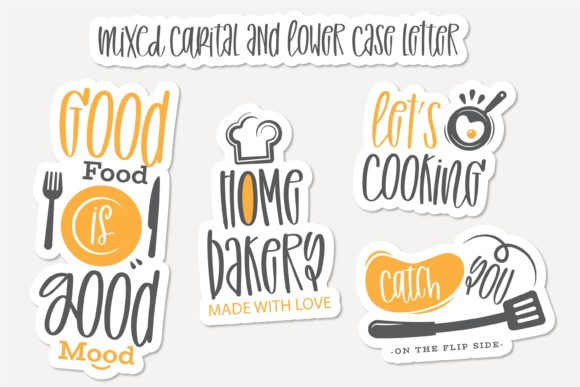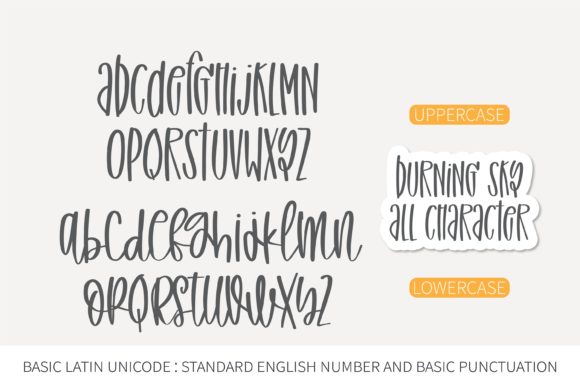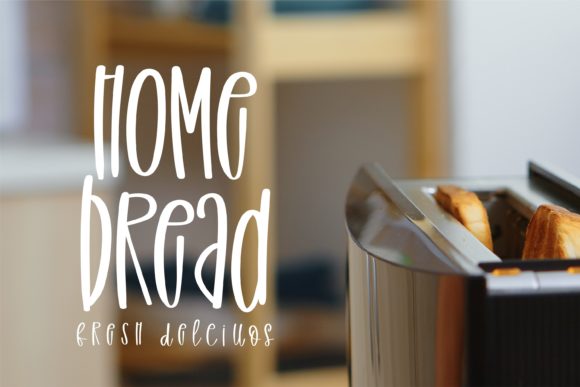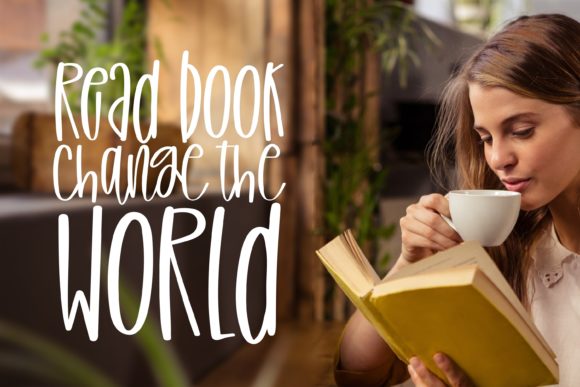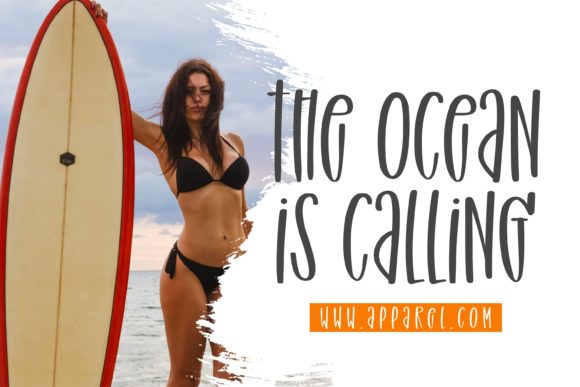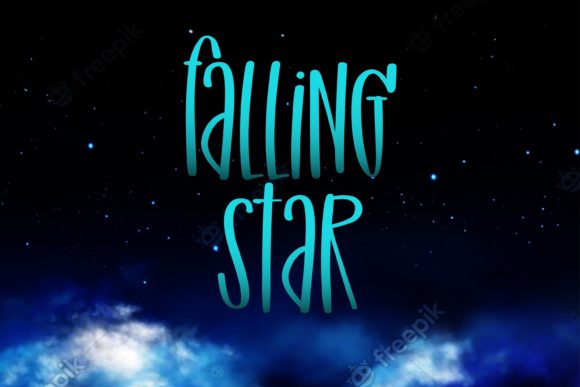
Discover the Charm of Burning Sky Font: A Sweet and Quirky Handwritten Delight
Are you on the hunt for a font that adds a touch of whimsy and romance to your designs? Look no further than the Burning Sky Font, a sweet and quirky handwritten font that’s sure to capture your heart. With its incredibly versatile style, this font is perfect for creating a wide range of projects, from gorgeous wedding invitations and beautiful stationary art to eye-catching social media posts and more.
The Beauty of Burning Sky Font
Burning Sky Font is a true gem, boasting a unique and charming handwritten style that’s both elegant and playful. Its sweet and quirky vibe makes it an ideal choice for designers and crafters looking to add a personal touch to their work. Whether you’re creating something for a client or for your own personal project, this font is sure to impress.
What Makes Burning Sky Font So Versatile?
One of the things that sets Burning Sky Font apart is its incredible versatility. This font can be used for a wide range of projects, including:
- Wedding invitations and stationery: Add a touch of romance and whimsy to your wedding designs with this beautiful font.
- Stationary art: Create gorgeous artwork, such as quotes, posters, and more, with this font’s elegant and playful style.
- Social media posts: Make your social media posts stand out with this font’s unique and eye-catching style.
- Branding and packaging: Use Burning Sky Font to add a personal touch to your brand’s packaging and marketing materials.
- Crafting projects: This font is perfect for crafters who love to create handmade cards, scrapbook pages, and other paper crafts.
Why Choose Burning Sky Font?
So, why should you choose Burning Sky Font for your next project? Here are just a few reasons:
- Unique and charming style: This font’s sweet and quirky vibe is sure to set your designs apart.
- Incredibly versatile: Use this font for a wide range of projects, from wedding invitations to social media posts.
- Elegant and playful: Burning Sky Font strikes the perfect balance between elegance and playfulness.
- Easy to read: Despite its whimsical style, this font is easy to read, making it perfect for body text and headlines.
Tips for Using Burning Sky Font
To get the most out of Burning Sky Font, here are a few tips to keep in mind:
- Pair it with other fonts: Experiment with pairing Burning Sky Font with other fonts to create a unique and eye-catching look.
- Use it for headlines and titles: This font’s elegant and playful style makes it perfect for headlines and titles.
- Add embellishments: Consider adding embellishments, such as flowers or other graphics, to give your designs an extra touch of whimsy.
- Experiment with colors: Don’t be afraid to experiment with different colors and textures to add depth and interest to your designs.
In conclusion, Burning Sky Font is a sweet and quirky handwritten font that’s sure to capture your heart. With its incredibly versatile style and charming vibe, this font is perfect for designers and crafters looking to add a personal touch to their work. Whether you’re creating wedding invitations, stationary art, social media posts, or more, Burning Sky Font is sure to impress. So why wait? Download Burning Sky Font today and start creating your own beautiful designs!